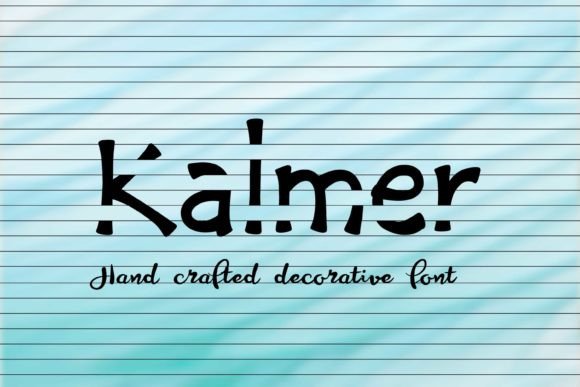
There's a reason those lines in your notebook always stay neat and tidy - they just know their place!
That's right, the Kalmer font is here to make your notebooks the tidiest in town. This fun and decorative display font features letters that wrap around, under, and over the lines, giving your notes a unique and eye-catching look.
With the Kalmer font, you can easily create gorgeous stationary art that will make your friends and family jealous. And if you're looking to up your social media game, this font will help you create eye-catching posts that are sure to get noticed.